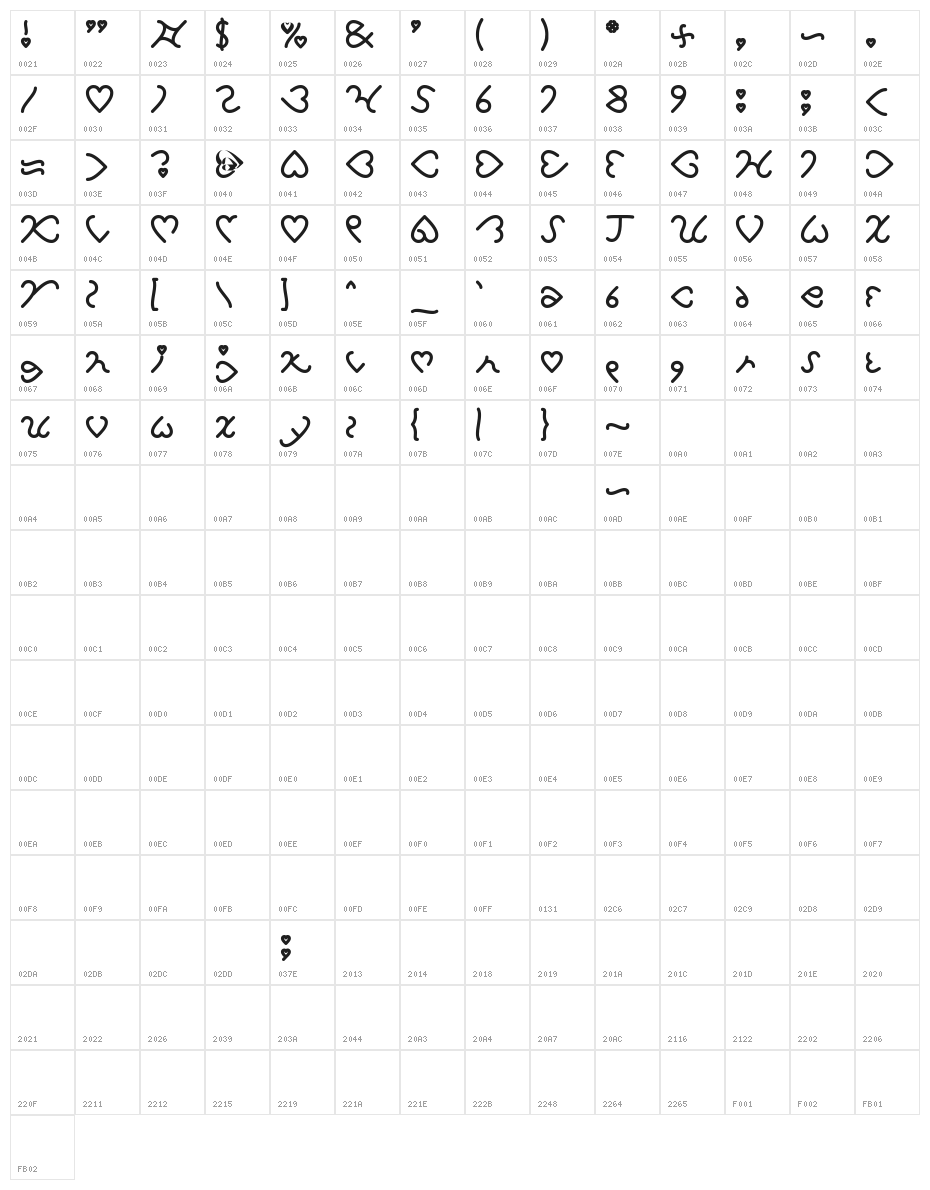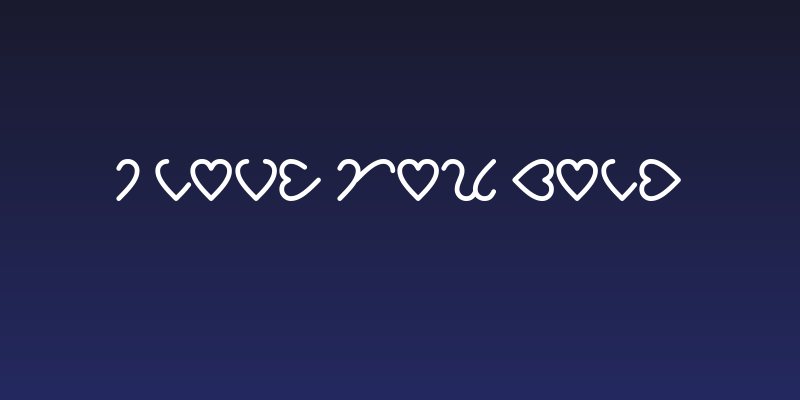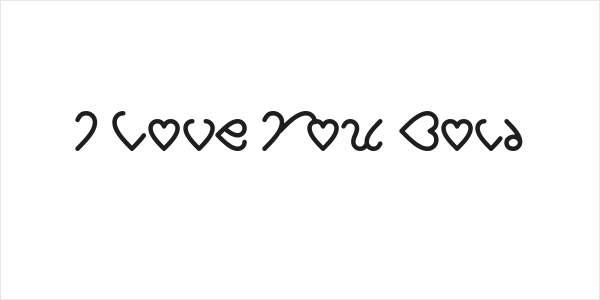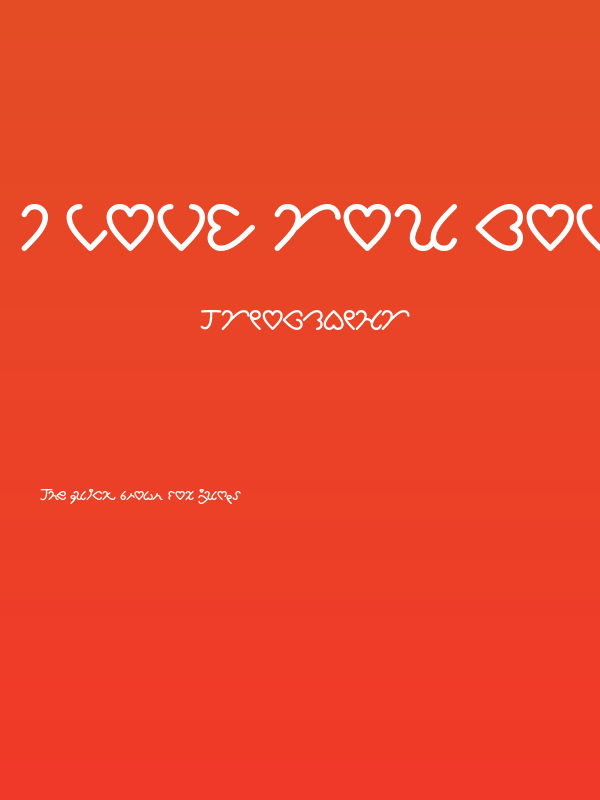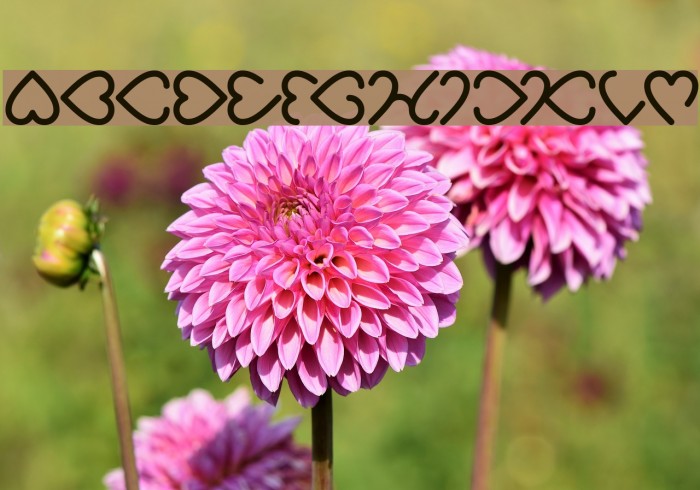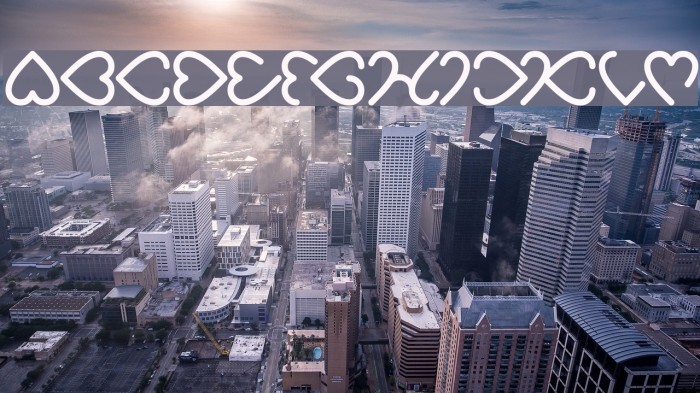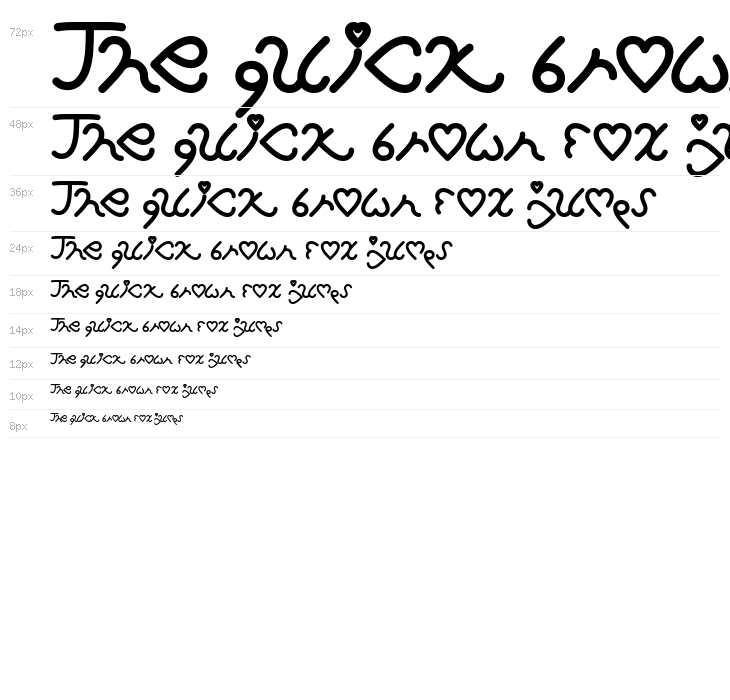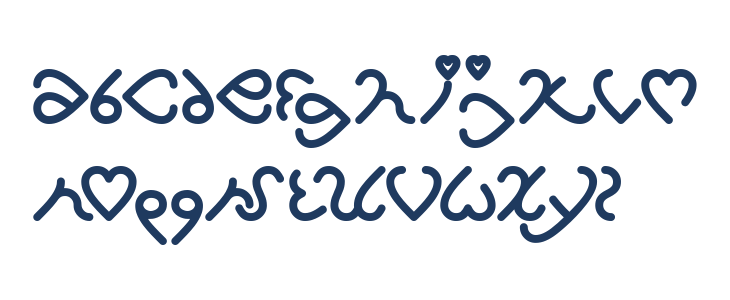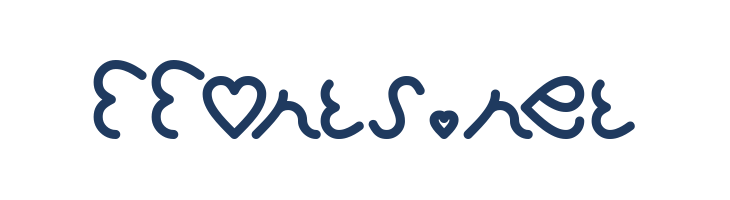
I Love You Bold Font
This playful and romantic font features heart-shaped elements integrated into each character, creating a whimsical and affectionate appearance. The letters are bold and rounded, with a consistent stroke width that gives them a smooth and cohesive look. The font includes both uppercase and lowercase letters, numbers, and a variety of special characters, all maintaining the heart motif. Its unique style makes it perfect for conveying love and warmth, ideal for designs that aim to evoke emotion and charm.
| Overall Style | Playful and Romantic |
| Use Case | Headlines, Logos, Greeting Cards |
| Proposed Projects | Ideal for Valentine's Day cards, wedding invitations, love-themed posters, and playful branding projects. |